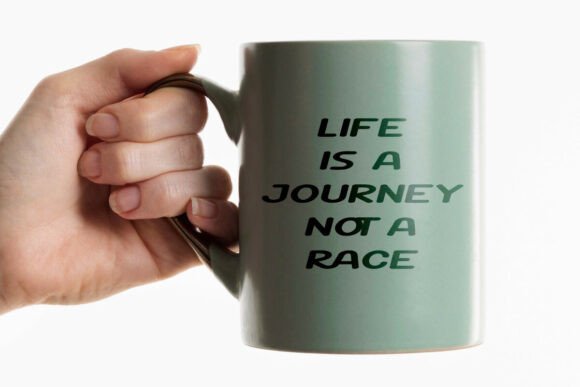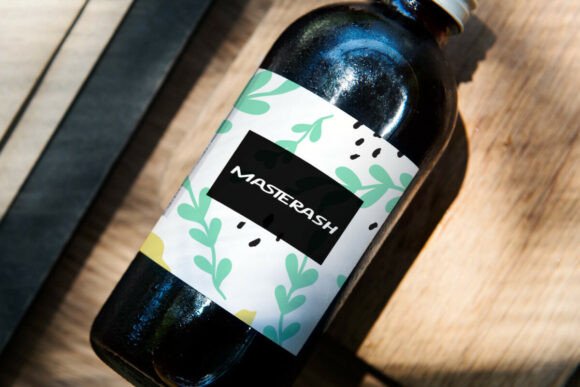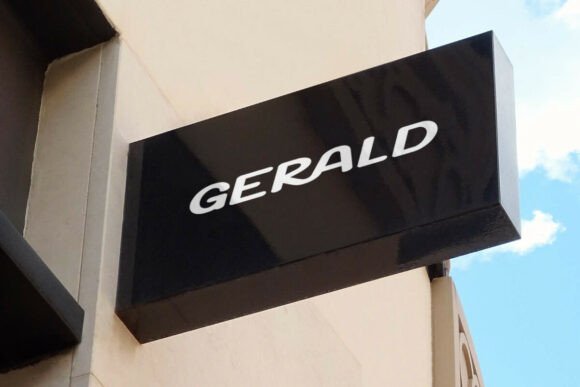
Introduction to Masterash Font
Unleash the speed with the Masterash font, a powerful, dynamic display typeface built for action and high-octane branding.
Clearly inspired by automobile racing and extreme sports, this font captures motion and adrenaline with its fluid, italicized form and distinctive letter shapes The subtle but deliberate curves and sharp angles on letters like the R and A mimic the sleek lines of a race car.
Masterash Font offers exceptional quality and versatility, making it a valuable addition to your design toolkit. Whether you’re creating for personal projects or commercial use, Masterash Font delivers professional results.